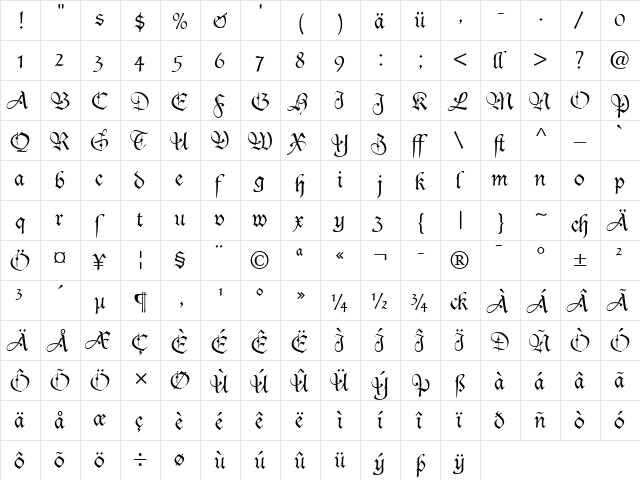
DucDeBerry LT Dfr Regular
Design Context for DucDeBerry LT Dfr Typeface
DucDeBerry LT Dfr is a composed and adaptable typeface that performs quietly and consistently across a wide range of design contexts. The delicate stroke weight brings airiness and refinement to layouts.